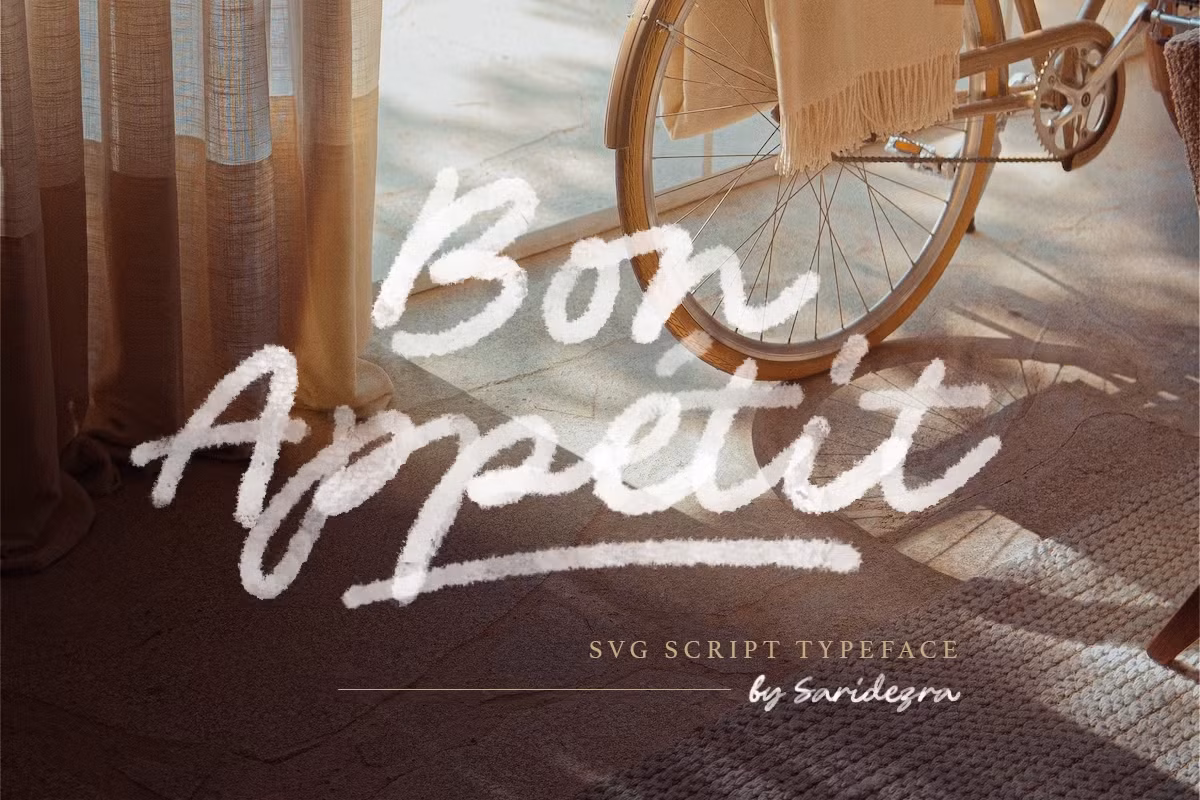
Deliciously elegant and rich in texture, Bon Appétit – SVG Script Free Download is a stunning hand-painted script font that captures the authentic look of brush lettering with watercolor detail. Perfect for food blogs, recipe books, café branding, invitations, packaging, and anything that needs a tasteful, artistic touch—this font delivers visual flavor in every letter.
As an SVG font, Bon Appétit preserves the transparency, texture, and color depth of real brush strokes, bringing a high level of realism and handcrafted beauty to your text. It’s ideal for standout headlines and signature-style logos that need to feel both fresh and refined.